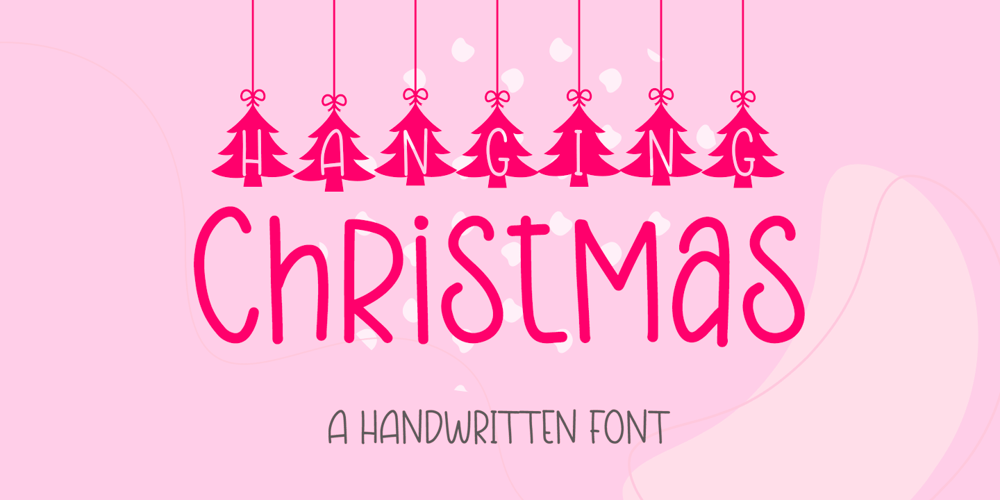
Hanging Christmas Tr Font Family was designed by Dian Haniffan Hadi and published by Beary. Hanging Christmas Tr contains 2 styles and family package options. Hanging Christmas is a handwritten duo font with a decorative style, perfect for creating a warm and joyful holiday atmosphere. Inspired by the iconic beauty of pine trees, this font is ideal for greeting cards, decorations, posters, and other design projects that need a unique festive touch. Bring the magic of Christmas to every creation with Hanging Christmas!